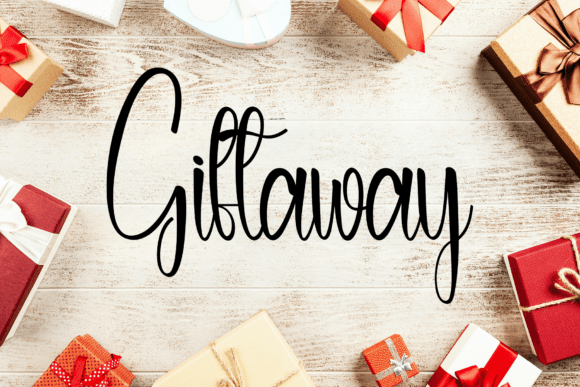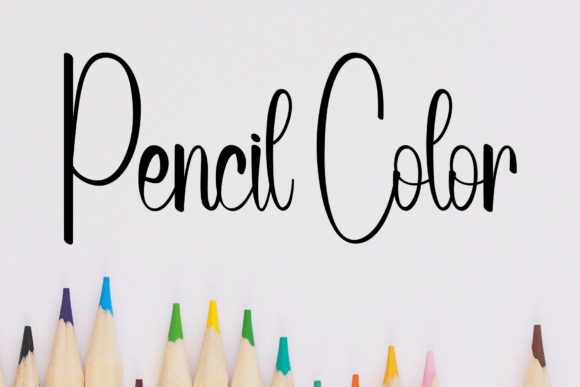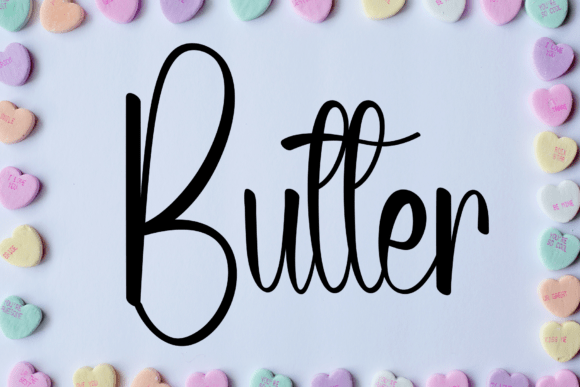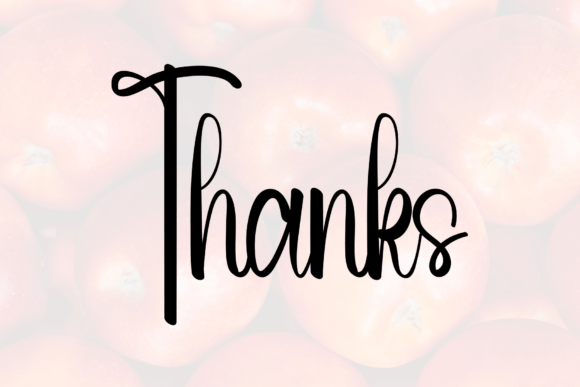
Discover the Charm of Blanche Font: Elevate Your Designs with Heartfelt Perfection
In the world of typography, few fonts manage to capture the essence of warmth and personality as effectively as Blanche Font. This charming handwritten font is designed to infuse your designs with a sense of heartfelt perfection, making it an ideal choice for creatives looking to add a personal touch to their projects. With its smooth strokes and organic lines, Blanche Font evokes a relaxed atmosphere that is both inviting and engaging.
The Characteristics of Blanche Font
Blanche Font is distinguished by its unique blend of elegance and informality. Its smooth strokes flow effortlessly across the page, creating a sense of fluidity and movement. The organic lines of the font give it a distinctly handmade feel, as if each letter was carefully crafted with love and attention. This combination of smoothness and organic texture makes Blanche Font versatile and adaptable, suitable for a wide range of design applications.
Whether you’re working on a branding project, designing invitations, or creating social media graphics, Blanche Font is an excellent choice. Its relaxed and approachable vibe makes it perfect for:
- Branding: Use Blanche Font to create a unique and memorable brand identity that stands out from the crowd. Its distinctive character will help you establish a strong visual presence and connect with your target audience on a more personal level.
- Invitations: Add a touch of warmth and personality to your invitations with Blanche Font. Whether you’re planning a wedding, birthday party, or baby shower, this font will help you create beautiful and heartfelt invitations that set the tone for your special event.
- Social Media Graphics: Elevate your social media presence with Blanche Font. Use it to create eye-catching graphics, quotes, and posts that showcase your brand’s personality and style.
Why Designers and Crafters Love Blanche Font
Blanche Font has quickly become a favorite among designers and crafters due to its unique combination of style and versatility. Here are just a few reasons why:
- Emotional Connection: Blanche Font helps you create an emotional connection with your audience. Its warm and inviting feel makes your designs more relatable and engaging, which is essential for building a loyal following.
- Flexibility: This font is incredibly versatile, making it suitable for a wide range of design projects. Whether you’re working on a formal or informal project, Blanche Font will help you achieve your design goals.
- Ease of Use: Blanche Font is easy to read and works well in various sizes, making it perfect for both print and digital applications.
Tips for Using Blanche Font Effectively
To get the most out of Blanche Font, consider the following tips:
- Pair with Complementary Fonts: Combine Blanche Font with complementary fonts to create visual interest and hierarchy in your designs.
- Experiment with Colors: Don’t be afraid to experiment with different colors to find the perfect match for your design. Blanche Font works well with a variety of color schemes, from soft pastels to bold brights.
- Play with Texture: Add texture to your designs by layering Blanche Font over images or using it in combination with other textured elements.
Blanche Font is a charming handwritten font that offers a unique blend of style, versatility, and emotional connection. Its smooth strokes and organic lines make it perfect for a variety of design projects, from branding and invitations to social media graphics. Whether you’re a designer or crafter, Blanche Font is an excellent choice for anyone looking to add a touch of heartfelt perfection to their designs. So why not give it a try and see how Blanche Font can elevate your designs to the next level?